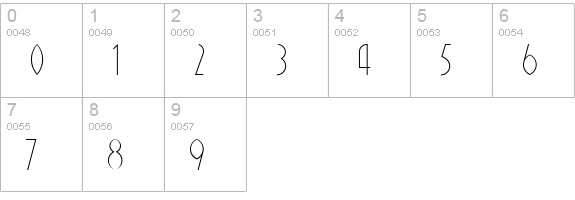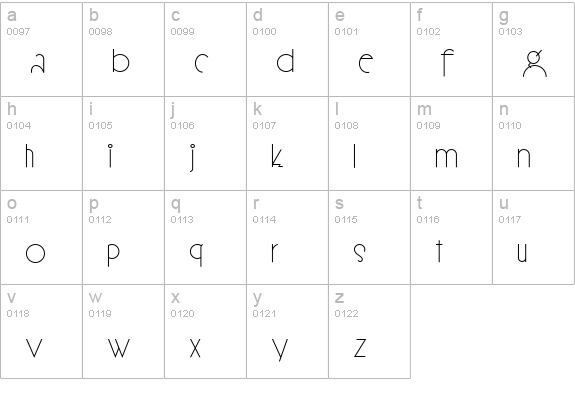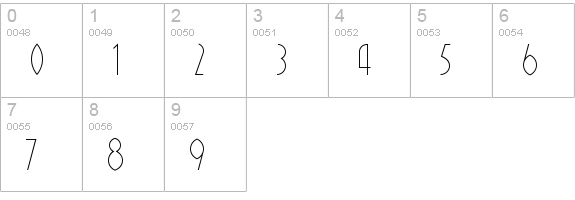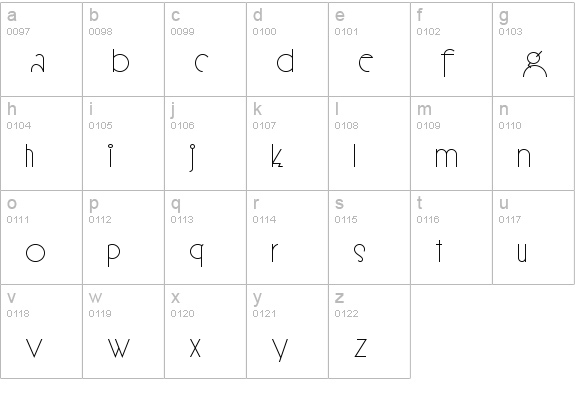
OKChoraleNF BETA Font Details
Introducing OKChoraleNF BETA font, a captivating and versatile typeface that is sure to make a statement in your designs. This modern and stylish font is perfect for a wide range of projects, from branding and advertising to social media graphics and website design. With its clean lines and unique character shapes, OKChoraleNF BETA font is sure to grab attention and leave a lasting impression. Whether you're looking to add a touch of sophistication to your next project or make a bold statement, this font has you covered. Best of all, OKChoraleNF BETA font is completely free to download at FontsMarket.com. So go ahead and give your designs a fresh new look with this fantastic font today!